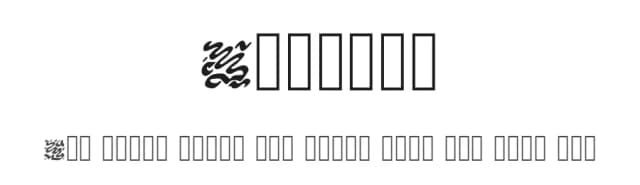
About Nelsen Font
The unpixelated/vectorised version of the font "Digits", which was featured in the "Chouhou Joutai" series.
| Designer | Blue91233 |